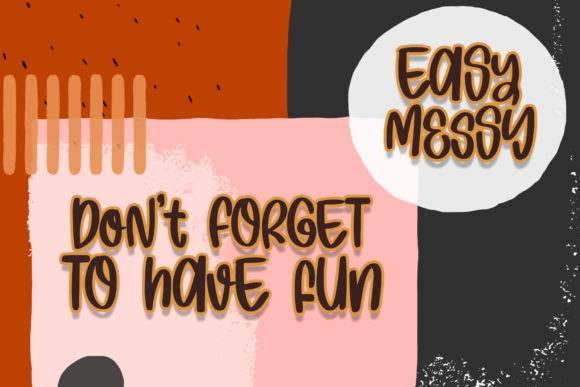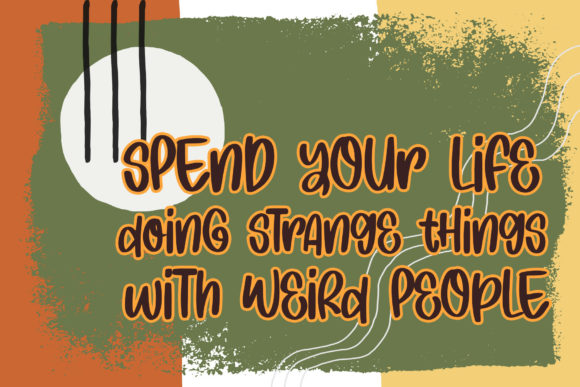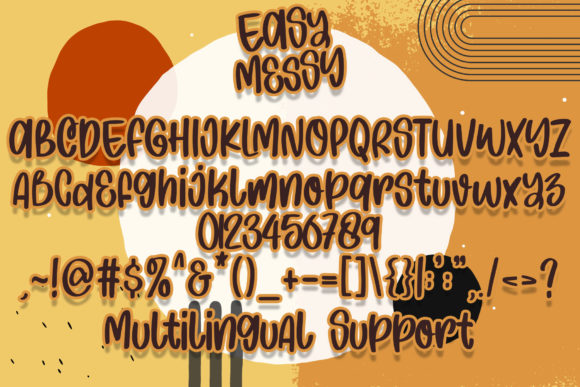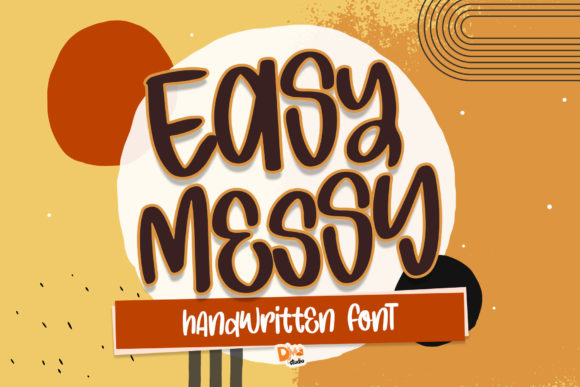
Introducing Easy Messy: The Quirky and Fun Handwritten Font
Are you tired of using the same old boring fonts in your designs? Look no further! Easy Messy is a unique and playful handwritten font that’s perfect for adding a touch of personality to your projects. With its quirky and fun style, this adaptable font is sure to make your designs stand out from the crowd.
What Makes Easy Messy So Special?
Easy Messy is a carefully crafted font that’s designed to bring a sense of fun and friendliness to your designs. Its messy, handwritten style gives it a charming and approachable feel that’s perfect for a wide range of projects, from creative crafts to digital designs. Whether you’re working on a logo, a poster, or a social media graphic, Easy Messy is the perfect choice.
One of the best things about Easy Messy is its versatility. This font can be used on a variety of design ideas, from playful and whimsical to bold and statement-making. Whether you’re designing for a client or working on a personal project, Easy Messy is sure to adapt to your needs. Its unique style works well in a variety of contexts, including:
- Invitations and party decorations
Adding a Fun and Friendly Touch
Easy Messy is more than just a font – it’s a way to add a fun and friendly touch to your designs. Its quirky style is sure to bring a smile to your audience’s faces and make your designs more engaging and memorable. Whether you’re working with kids or adults, Easy Messy is the perfect choice for adding a playful touch to your projects.
Easy Messy is a must-have font for designers and crafters alike. Its unique style and versatility make it perfect for a wide range of projects, from digital designs to handmade crafts. Whether you’re a professional designer or a DIY enthusiast, Easy Messy is sure to become a favorite in your font collection.
Tips for Using Easy Messy
Here are a few tips for getting the most out of Easy Messy:
- Use it as a headline font to add a pop of personality to your designs
- Pair it with a simpler font for a fun and contrasting look
- Use it to add a playful touch to your social media graphics and posts
Easy Messy is a quirky and fun handwritten font that’s perfect for adding a touch of personality to your designs. With its adaptable style and versatility, it’s sure to become a favorite in your font collection. Whether you’re a designer, crafter, or DIY enthusiast, Easy Messy is the perfect choice for adding a fun and friendly touch to your projects. So why wait? Give Easy Messy a try today and see the difference it can make!